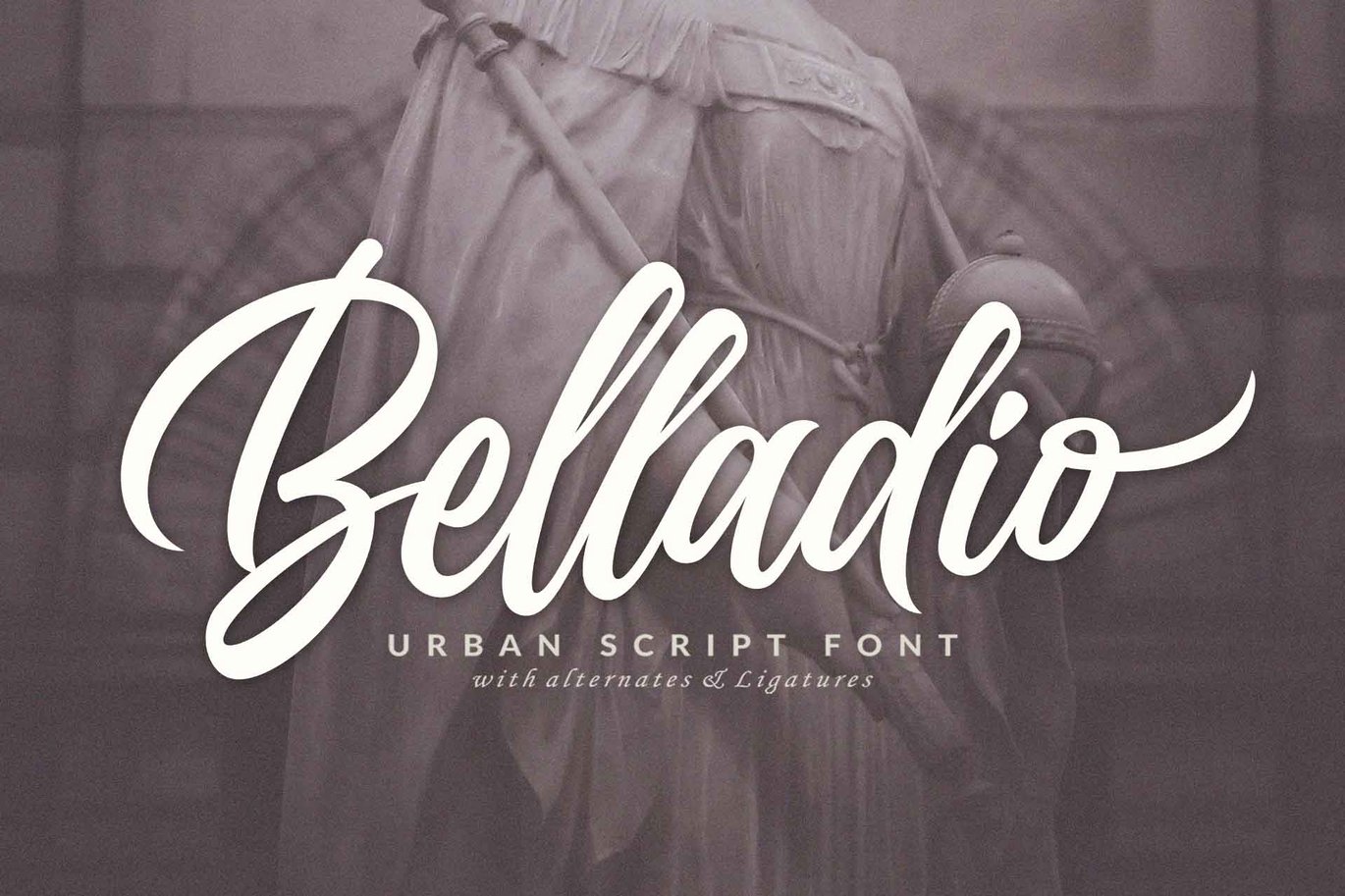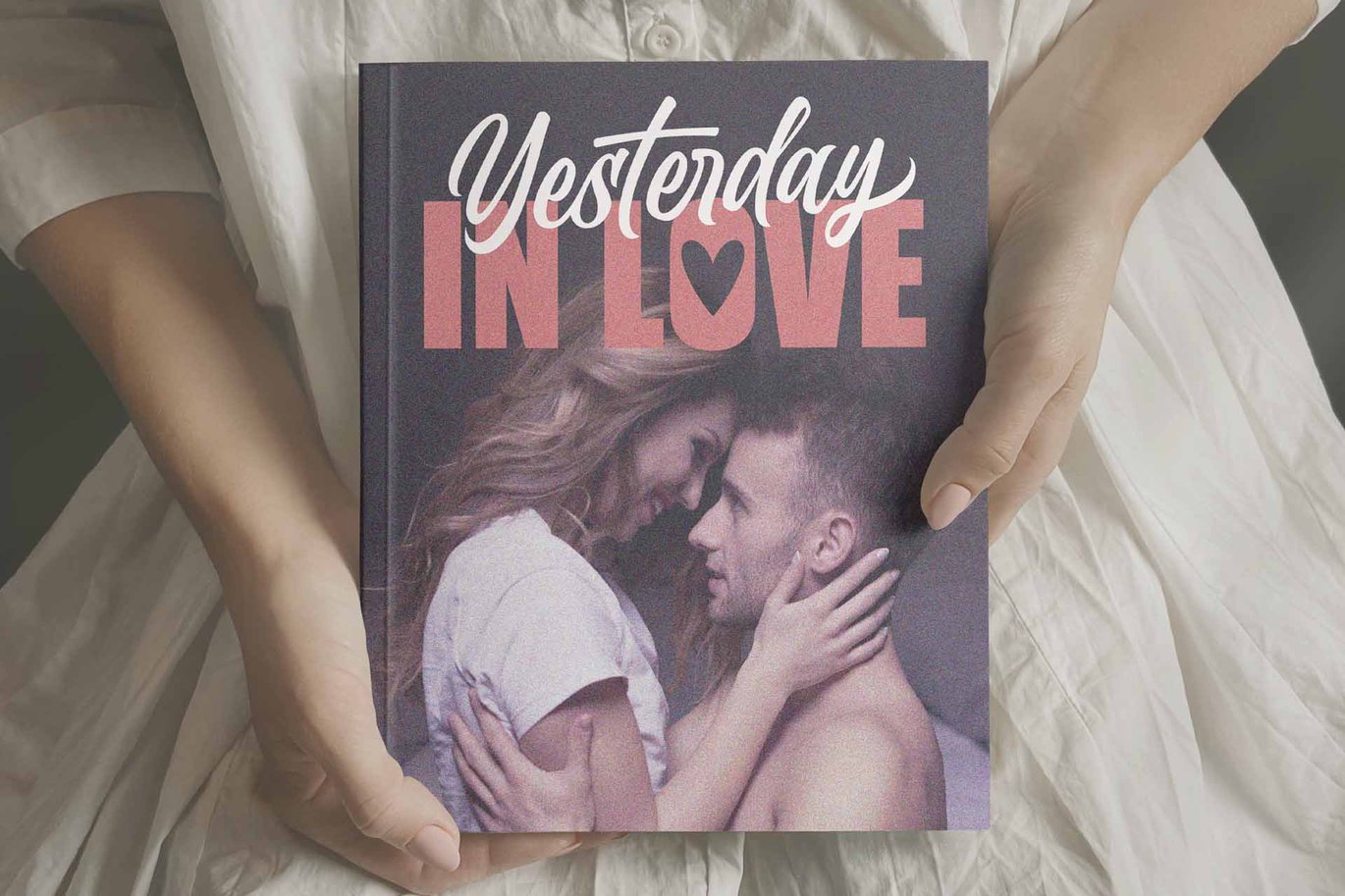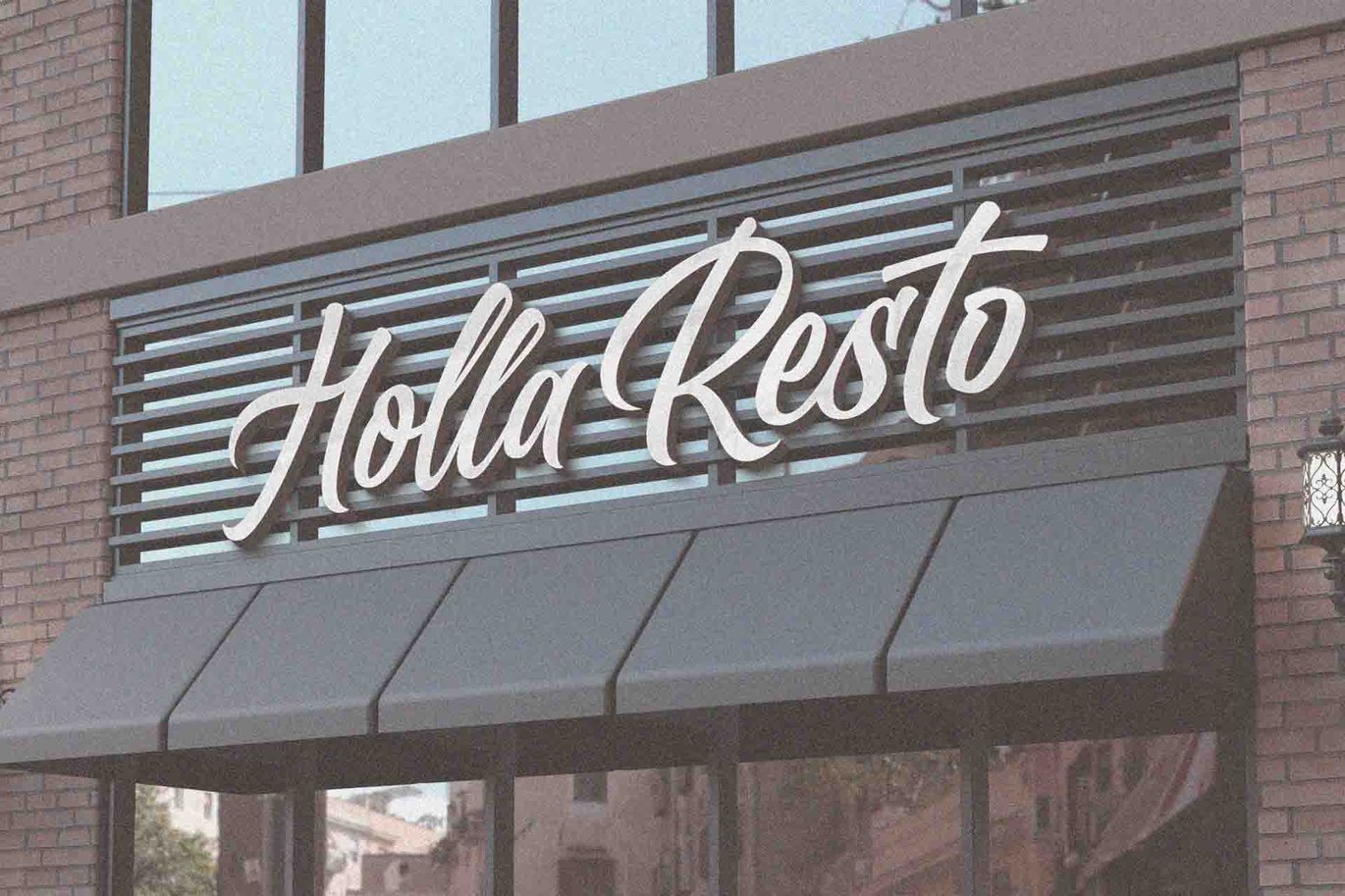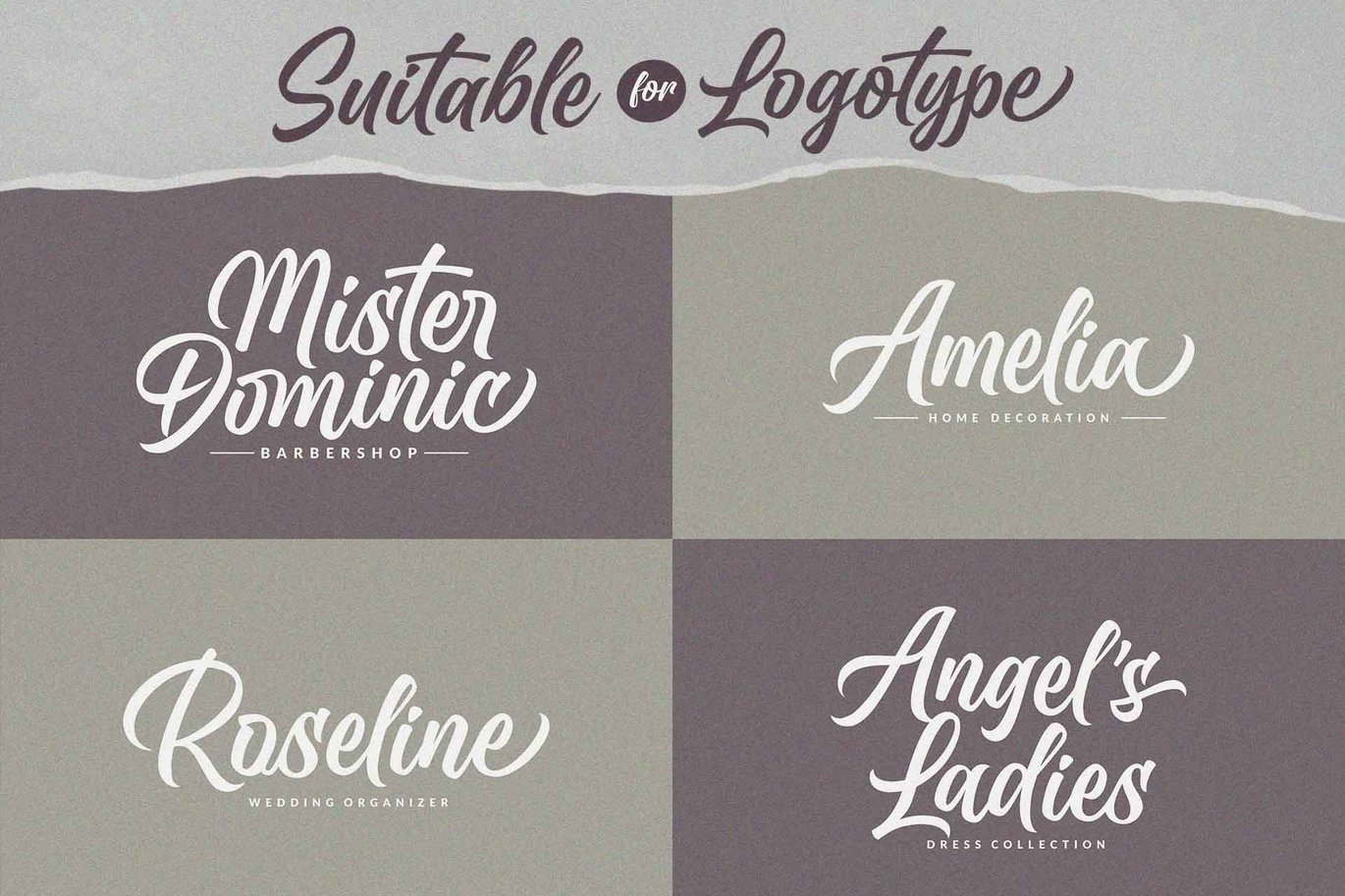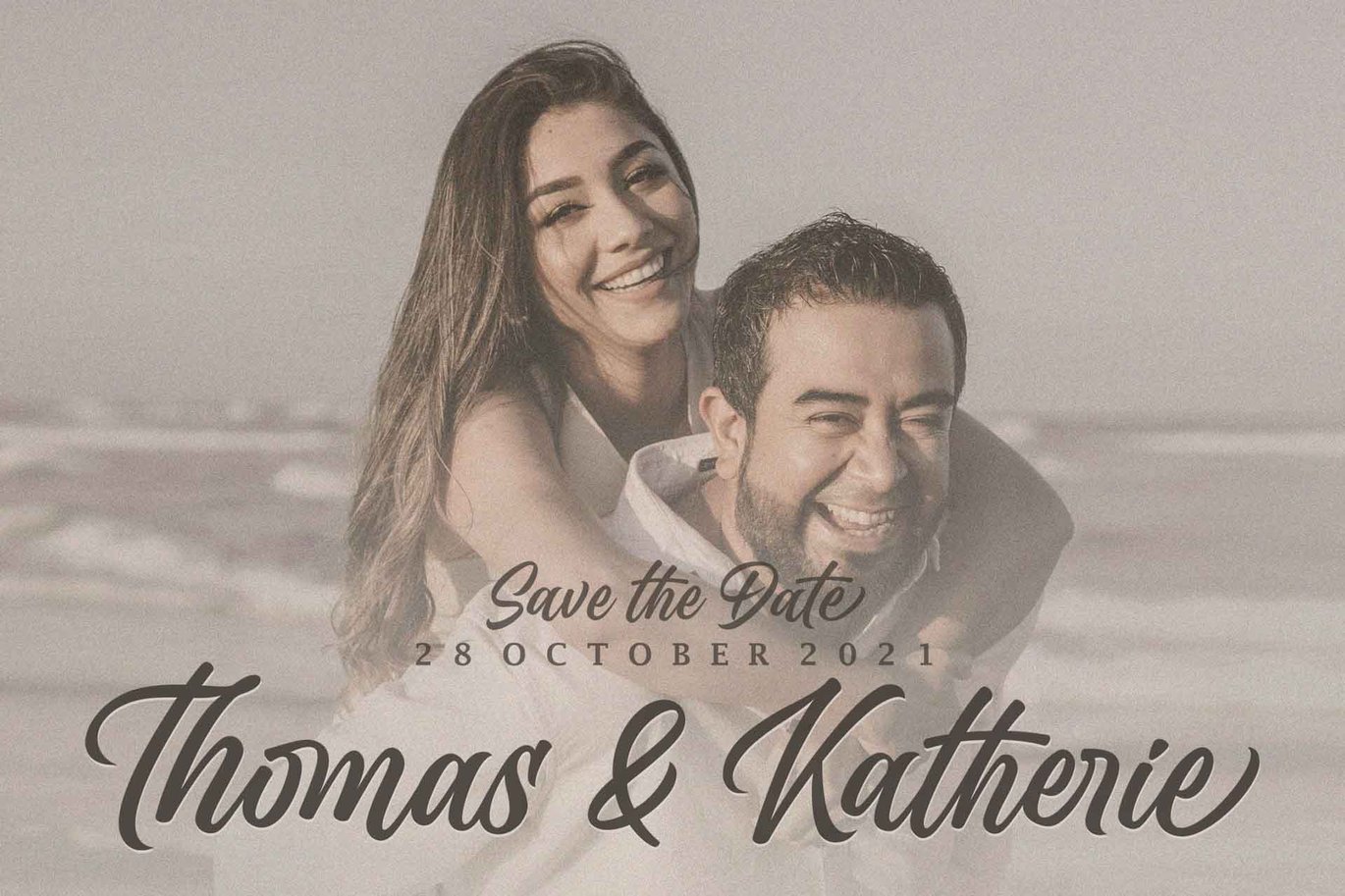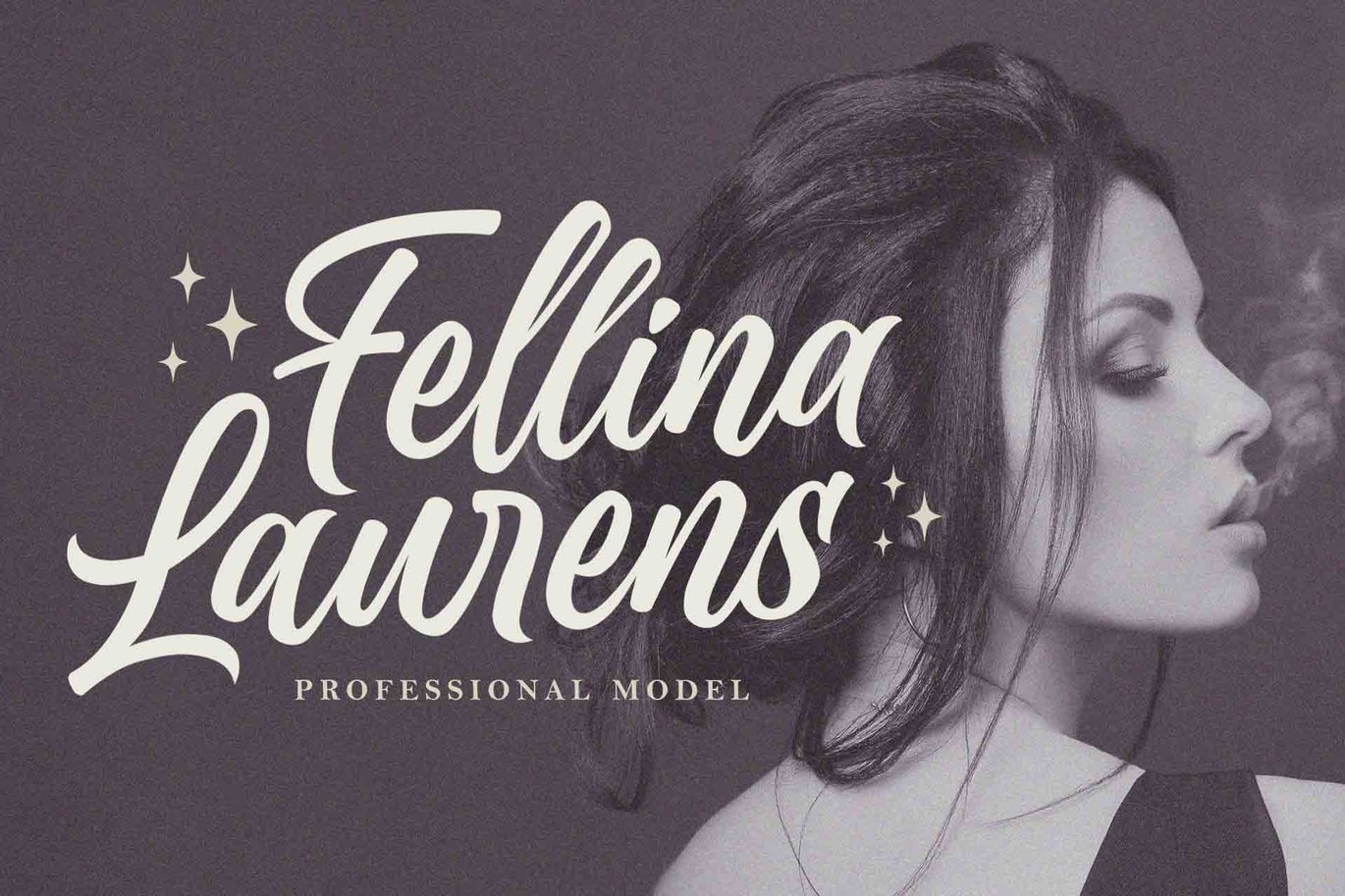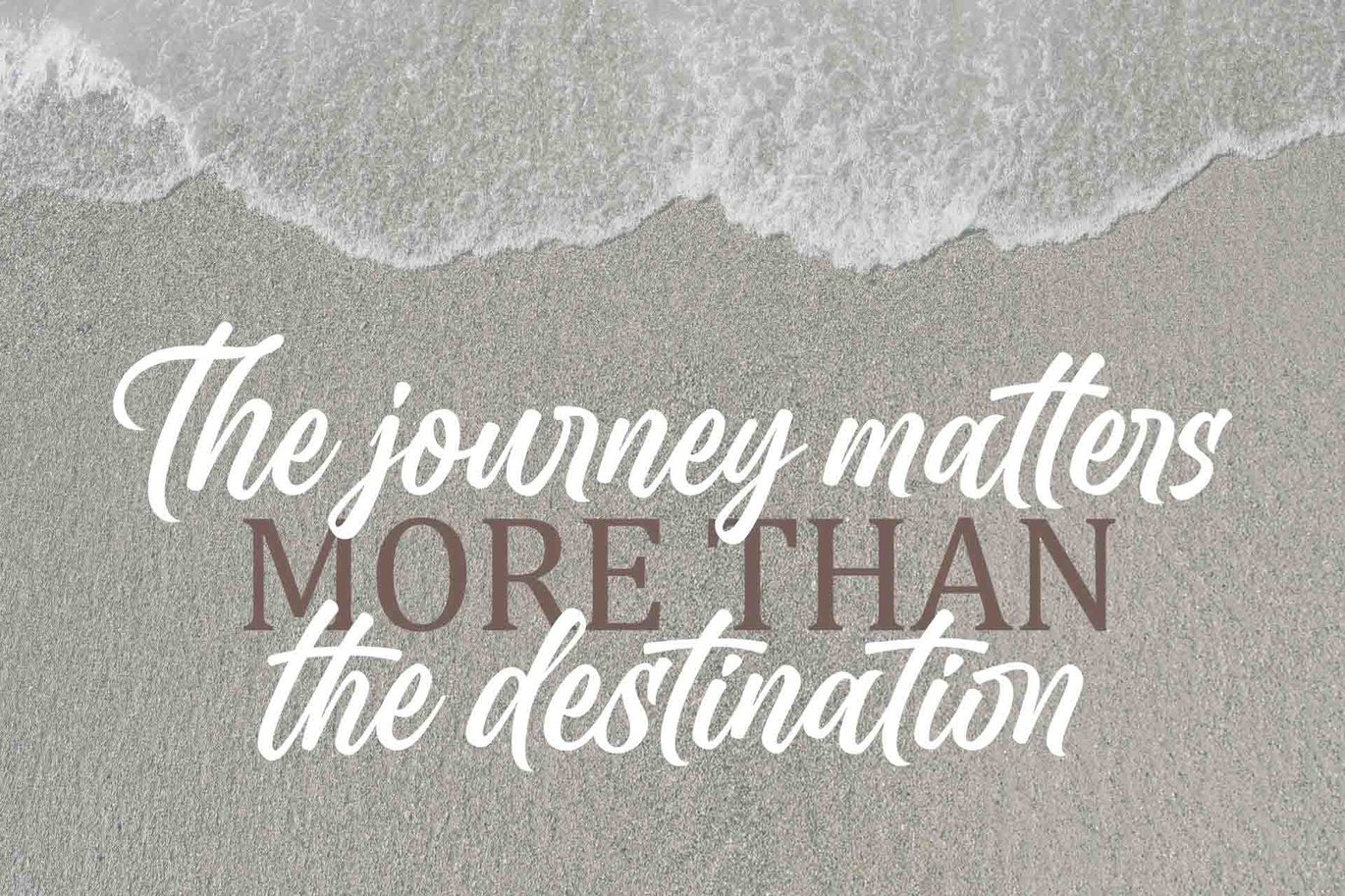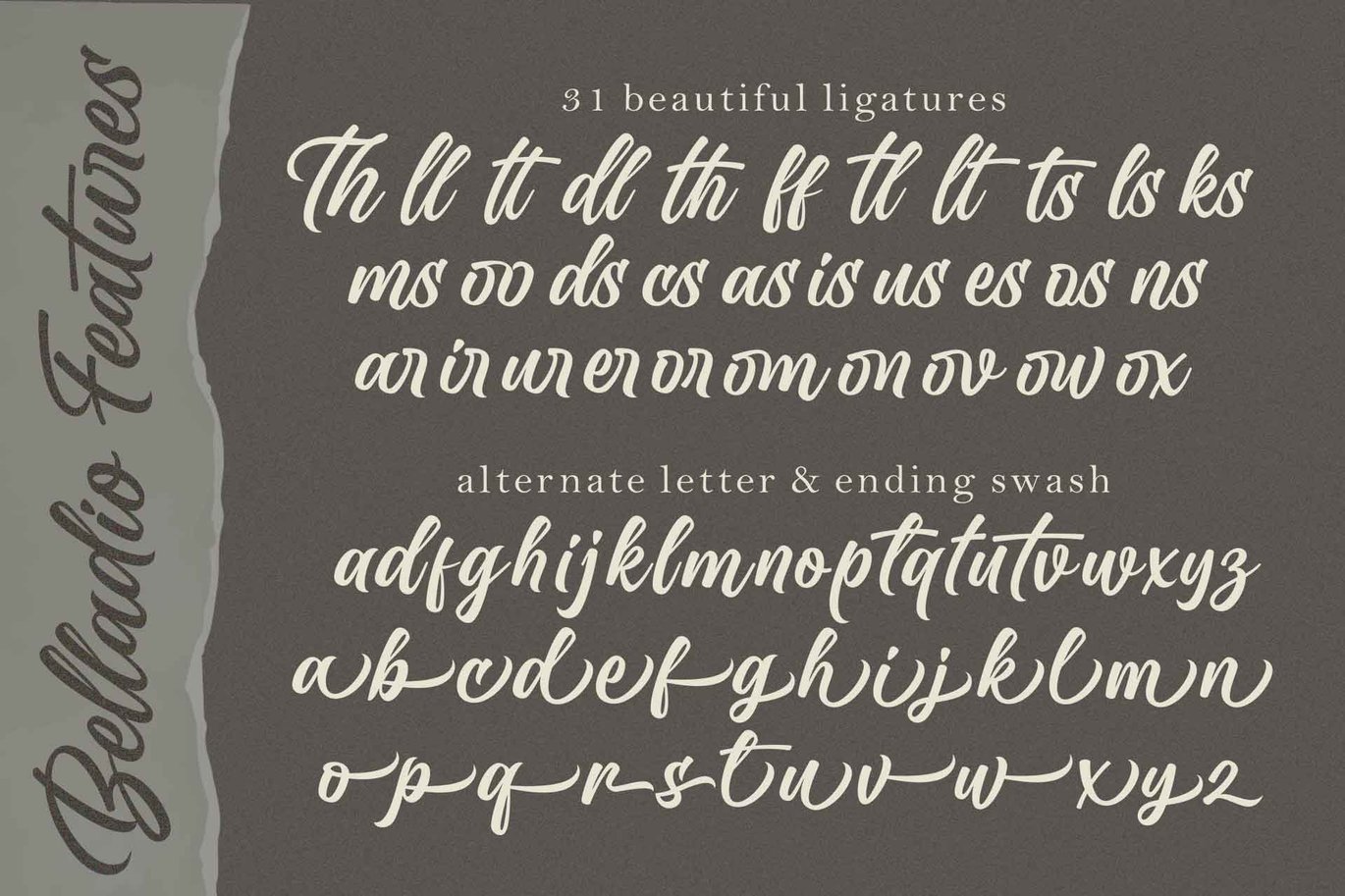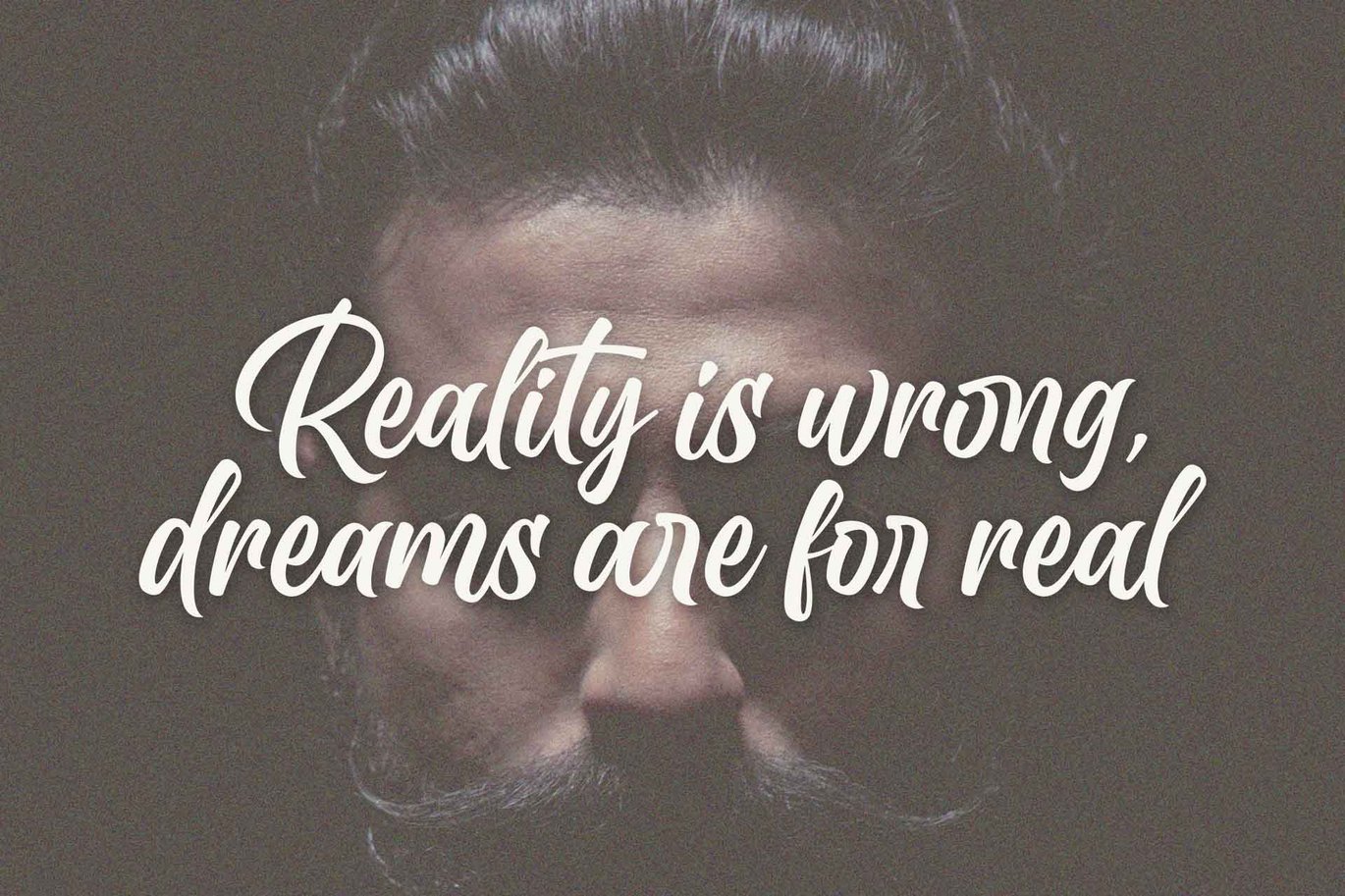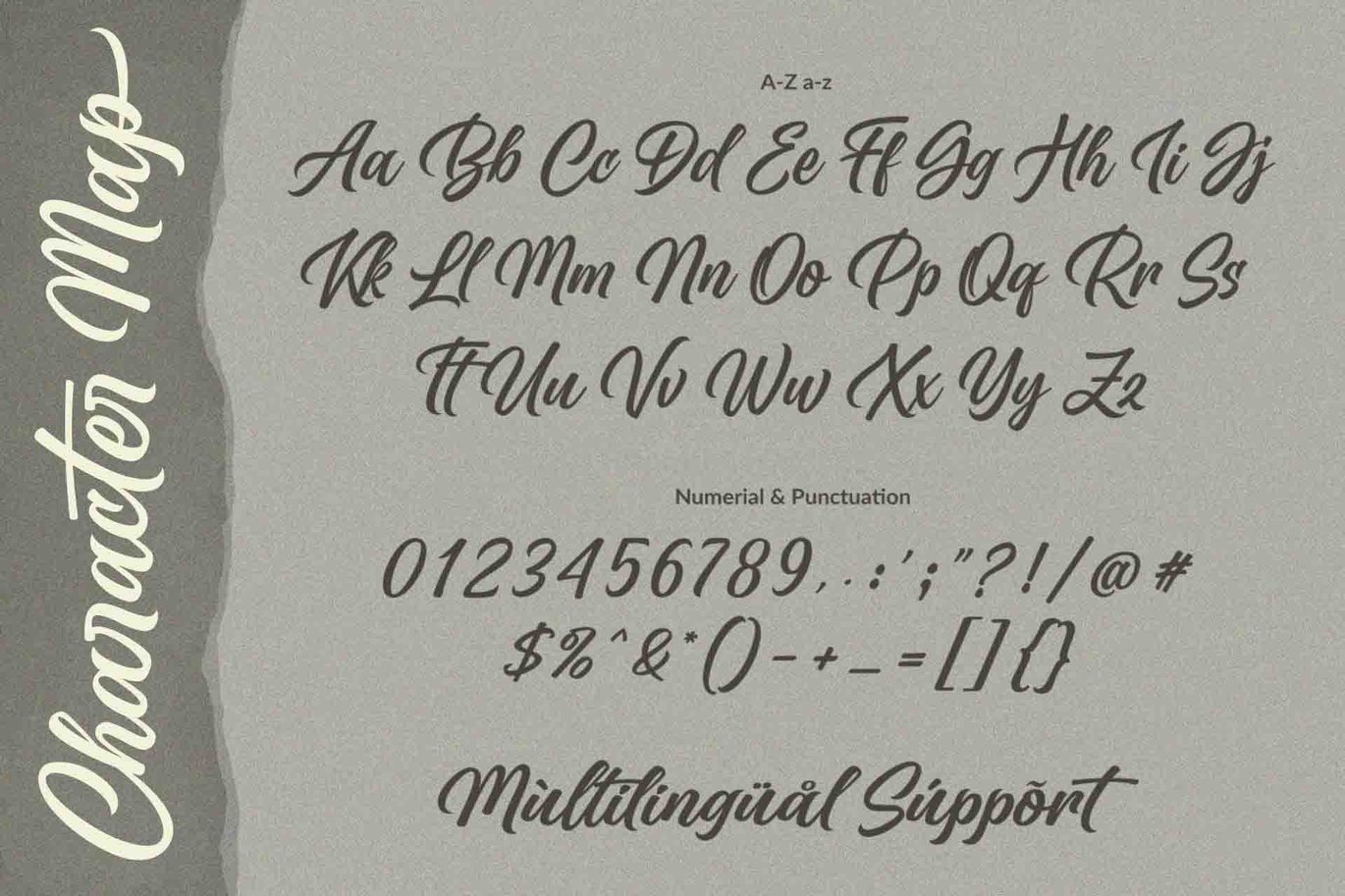
Belladio – Urban Script Font
Belladio is An Urban Script Font. This font was created to help you designing logotype with urban style for your Brand or your clients,
and also you can use it for designing all of the graphic stuff such as badge, sign, Esport, headline, urban design, T-shirt/apparel,
Poster, etc. Belladio was designed for personal characters such as strong, confidence, dynamic, readable, Energic, dynamic, etc.
Alternate letter
Ligatures
it has an extensive lingual support, covering European and Asian Latin scripts. The font contains
all characters you’ll ever need, including all punctuation and numbers.